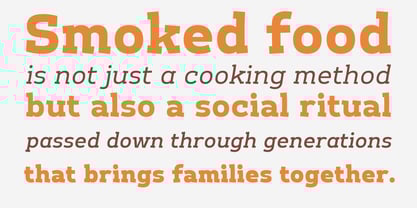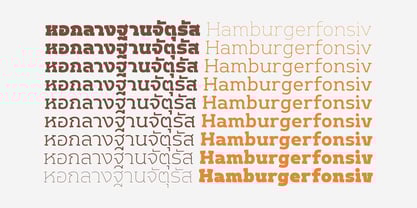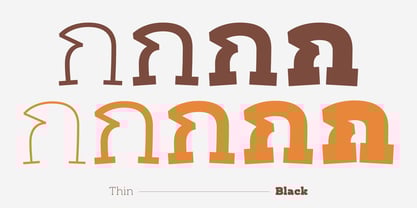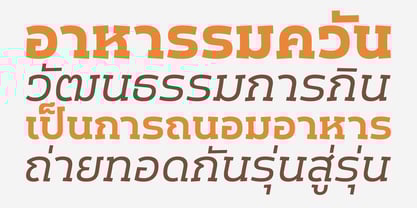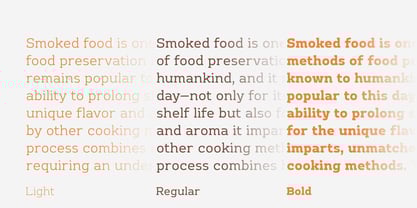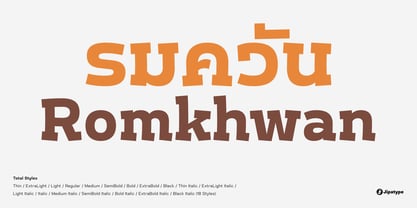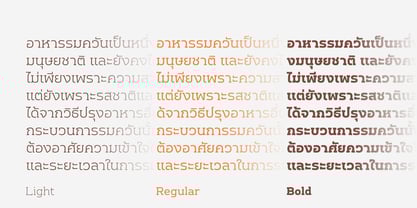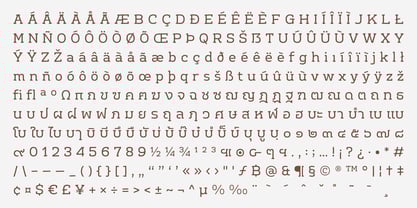
Romkhwan
by Jipatype
The Romkhwan Font Family was designed by Anupap Jaichumnan and published by Jipatype. Romkhwan contains 18 styles and family package options. More about this family
Romkhwan is a playful mix-serif typeface that strikes a balance between fun and structure. It’s quirky but never out of control—perfect for projects that need a relaxed yet composed tone.
While designing this typeface, I kept visualizing sausages sizzling on a hot grill, with smoke swirling in the air. That image inspired the name “Romkhwan”, which means “smoked” in Thai.
The typeface comes in 18 styles and supports both Thai and Latin-1 character sets, making it a versatile choice for a wide range of design.
Designers: Anupap Jaichumnan
Foundry: Jipatype
Jipatype is a type foundry founded and operated solely by Anupap Jaichamnarn, based in Bangkok, Thailand. Officially established in 2022, the foundry's journey began in 2019. The name "Jipatype" is derived from the Thai word “Jipatha” (จิปาถะ), meaning "miscellaneous" or "variety." This name reflects the diverse design concepts and influences that shape Jipatype’s versatile font collections.